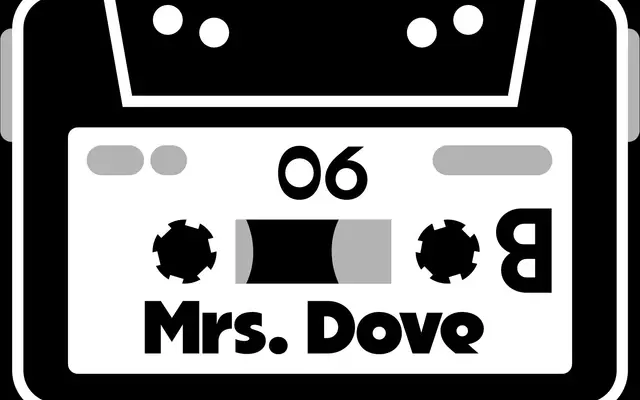
A display-oriented geometric grotesque with three weights and matching italics, covering Latin and Cyrillic scripts.
Designed with display use in mind, Striated blends grotesque and geometric influences with what the foundry describes as heavily formalised elements. Six styles across three weights serve both print and screen applications, and broad Latin and Cyrillic coverage makes it suitable for multilingual work. OpenType features include stylistic sets and superiors, offering flexibility for varied typographic contexts.
The foundry describes Striated as a mixture of grotesque and geometric with formalised elements, placing it firmly in a geometric grotesque subcategory within the sans-serif category.